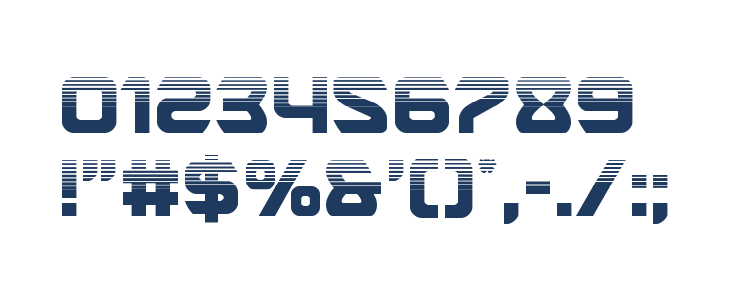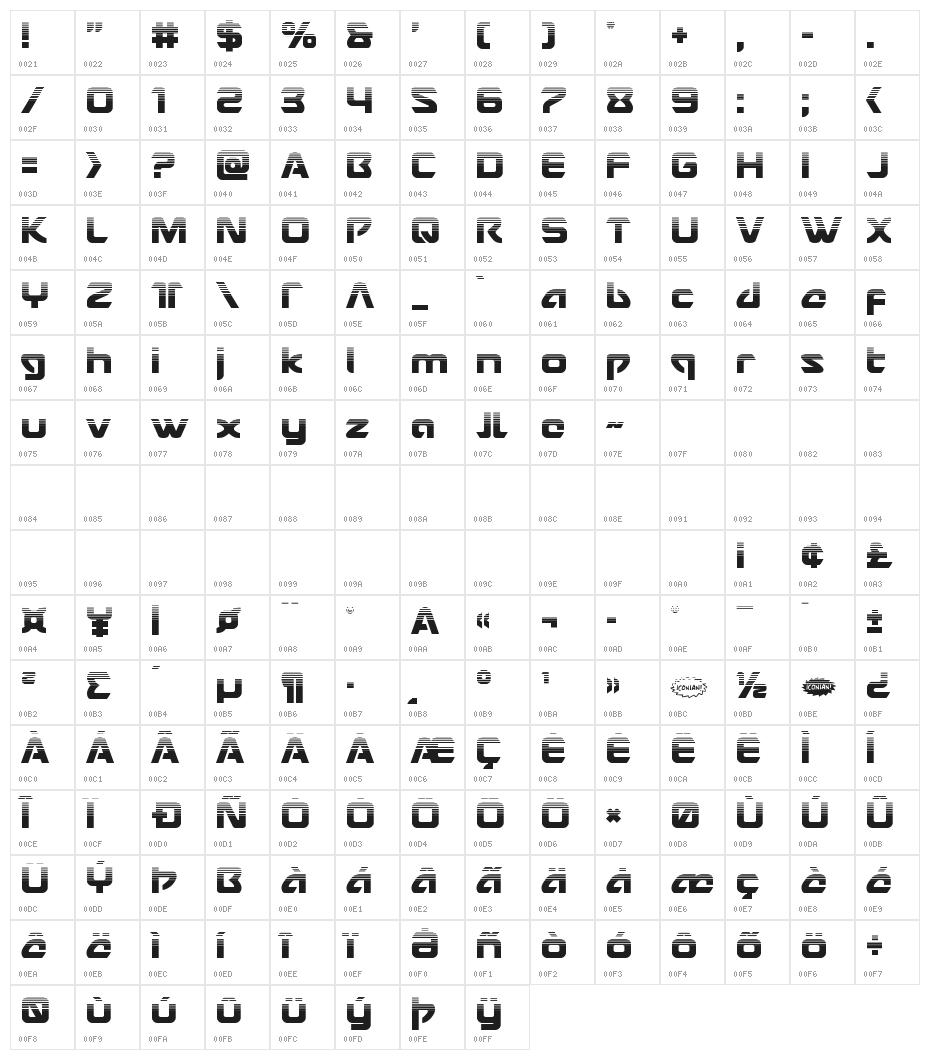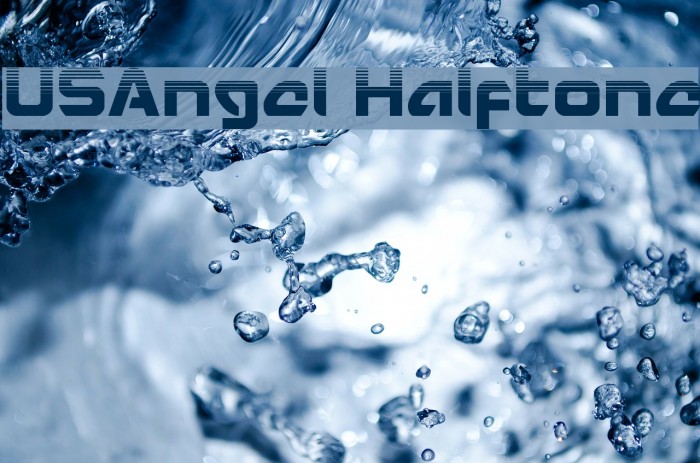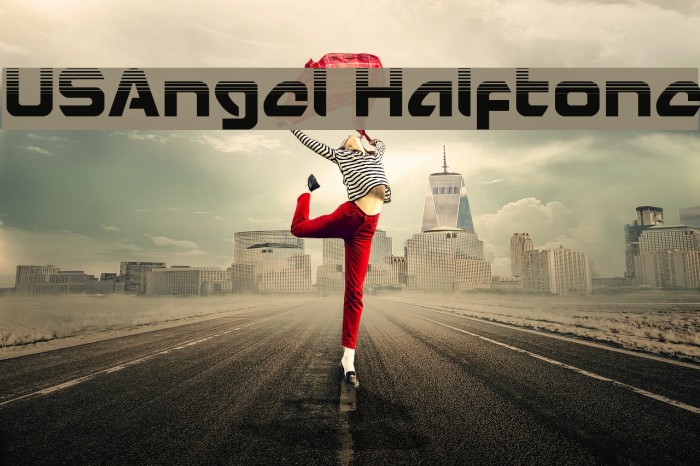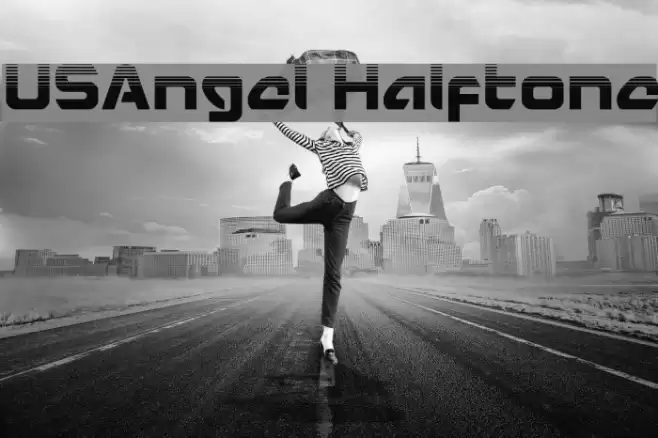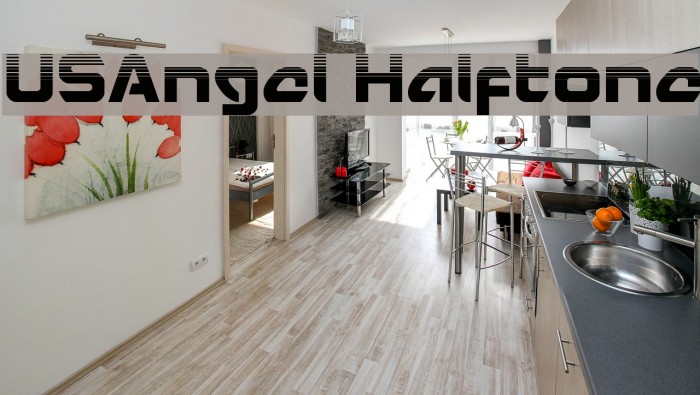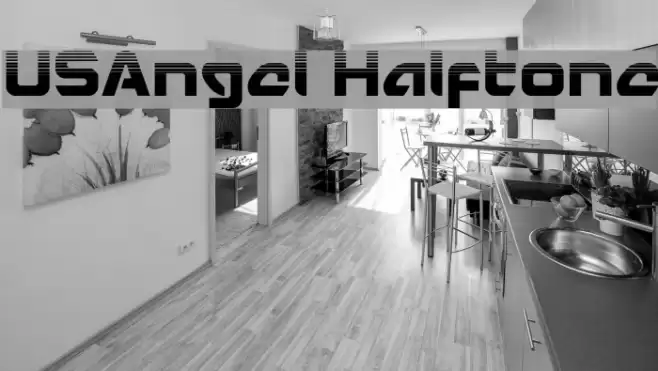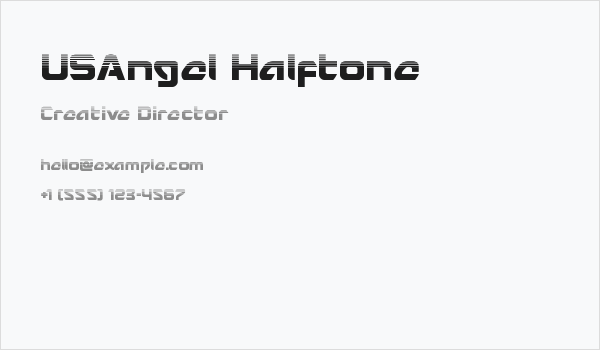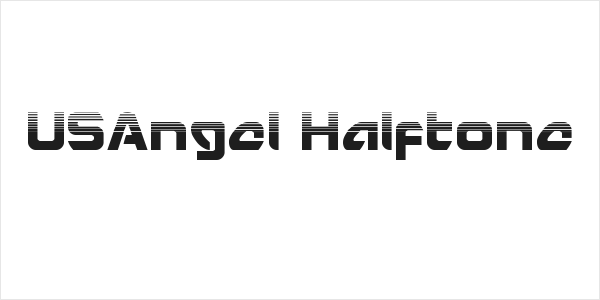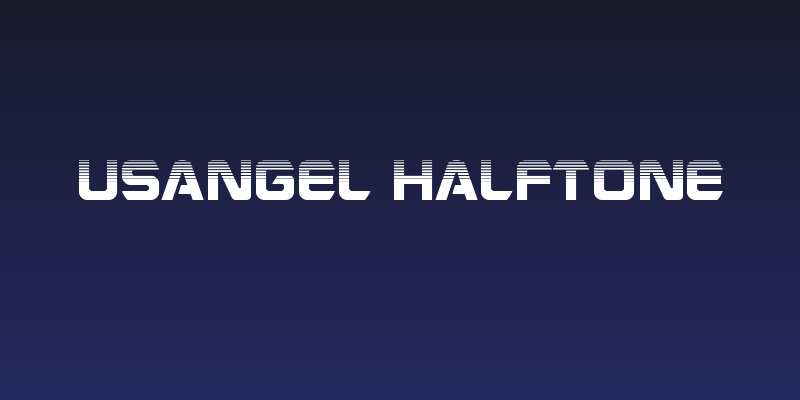
USAngel Halftone Font
USAngel Halftone Description
This font features a bold, futuristic design with a halftone effect that creates a sense of movement and depth. The characters are constructed with a series of horizontal lines that gradually increase in thickness, giving the impression of speed and modernity. The uppercase and lowercase letters maintain a consistent style, with sharp angles and geometric shapes that enhance its dynamic appearance. The numerals and special characters follow the same design principles, ensuring a cohesive look across all glyphs. This font is ideal for projects that require a strong, impactful visual presence.